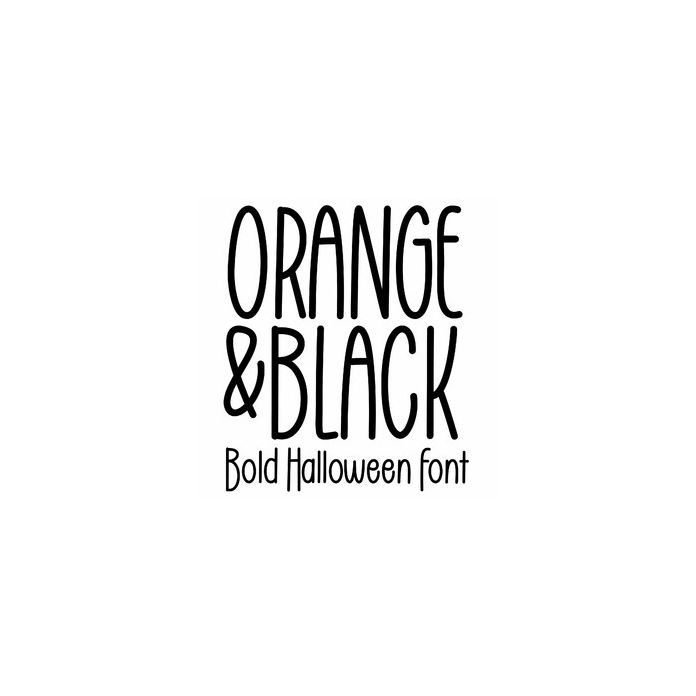
Orange and Black is a cute bold handwriting font for Halloween, cards, signs, stickers, planners, labels, monograms, and personalization projects. Includes alphabet, numbers, and punctuation.